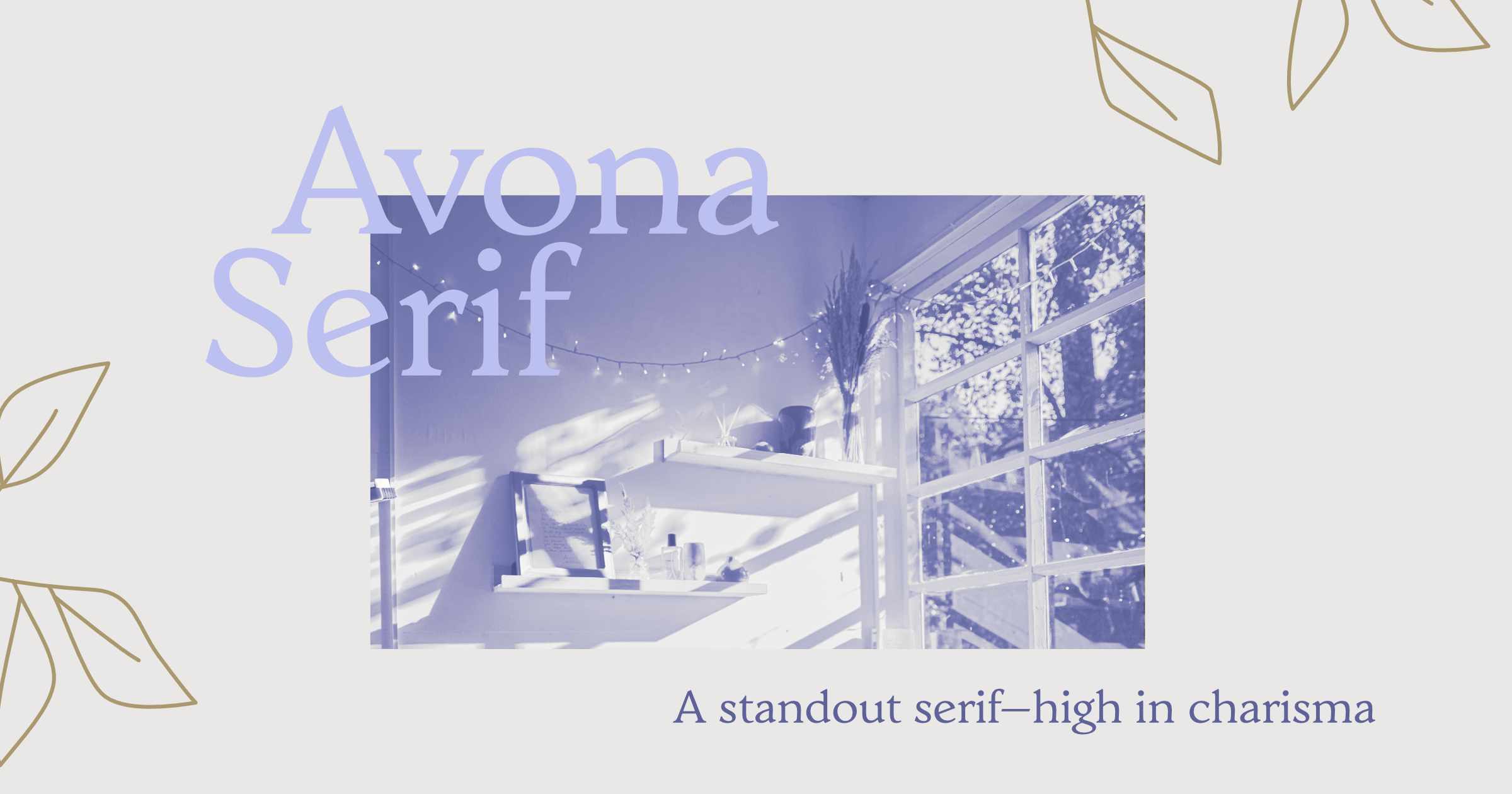
Traditional serifs often aim to become invisible in the text—to get out of the way of the content—but sometimes a serif needs to enchant and charm your readers. Avona serif is dripping with charismatic details that come from its unexpected forms and close relationship to calligraphy.
Traditional serifs often aim to become invisible in the text—to get out of the way of the content—but sometimes a serif needs to enchant and charm your readers. Avona serif is dripping with charismatic details that come from its unexpected forms and close relationship to calligraphy. We began with the question, “if a font were magically brought into existence, like by a wizard creating a document, what would it look like?”
The answer was Avona and the results are magic, with strong humanist influences contained in a rational set of rules for consistency. Avona Serif draws from Carolingian calligraphy and aims to capture the round, wide forms while creating a system of shapes that fulfill modern requirements of letterforms. Truly a work of modern spell craft!